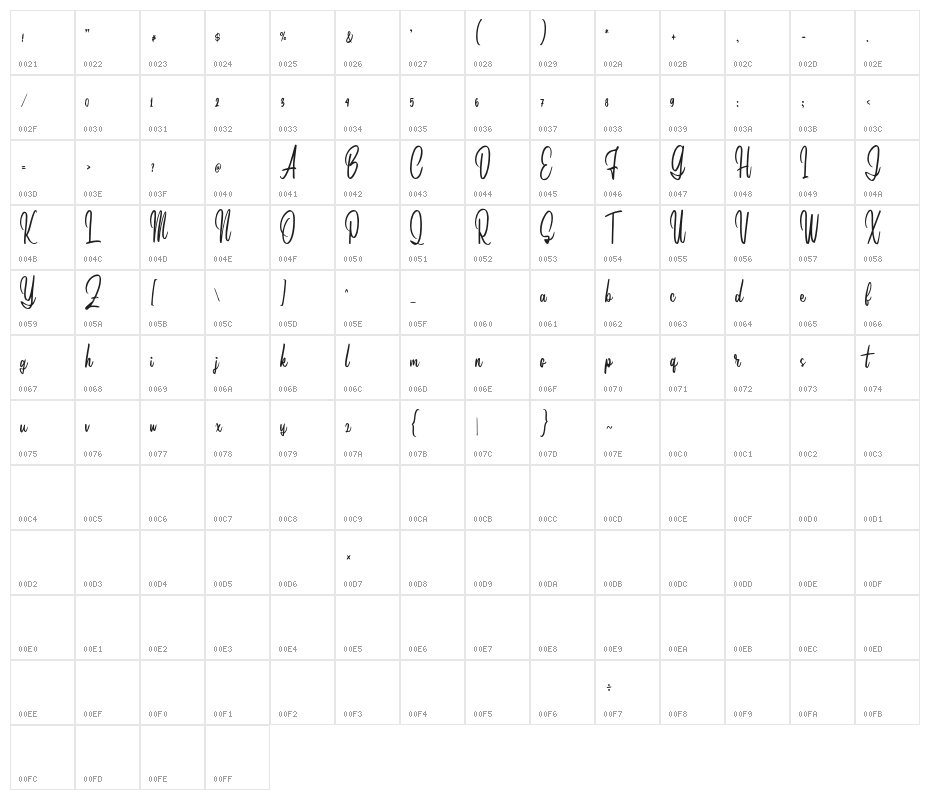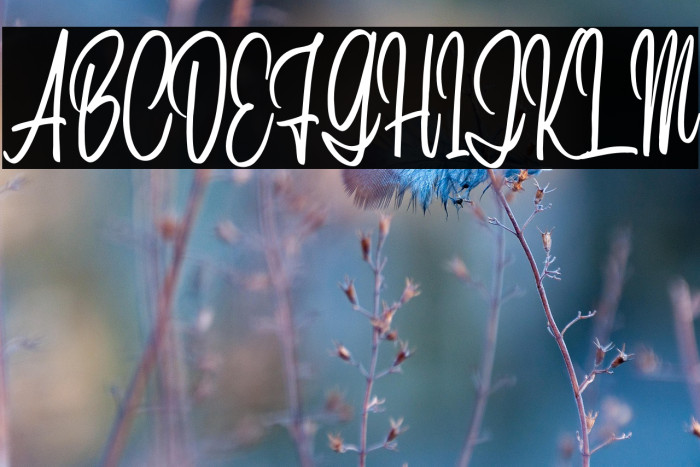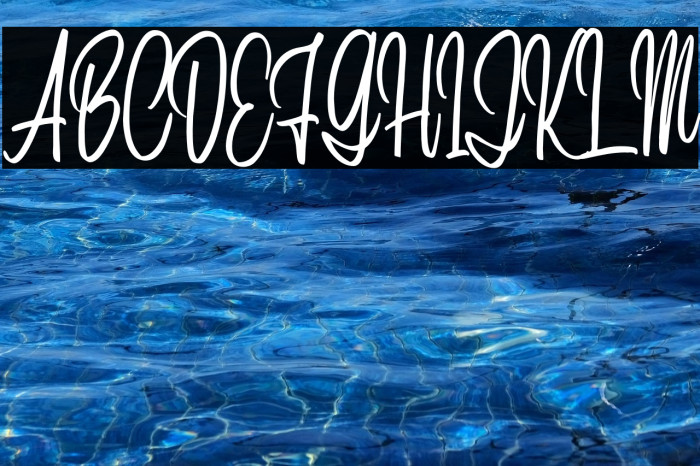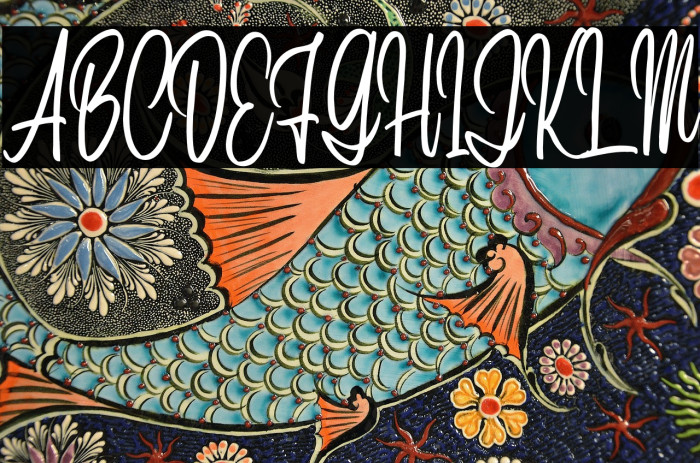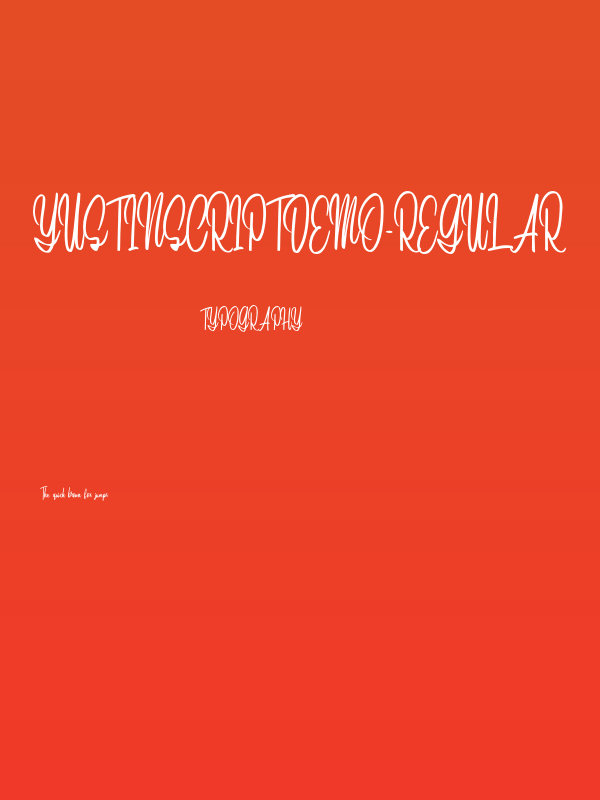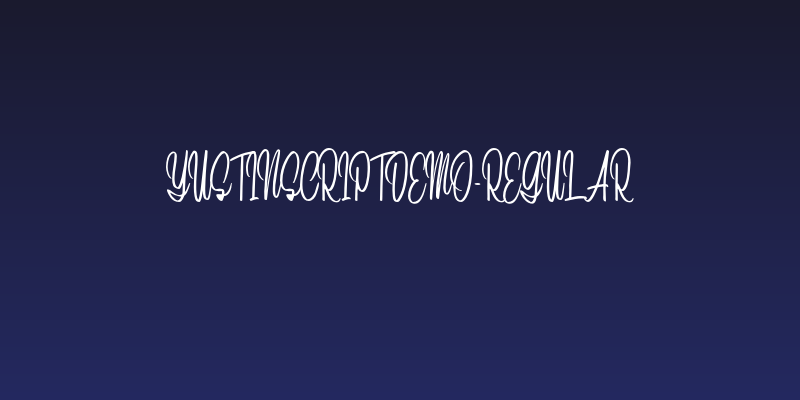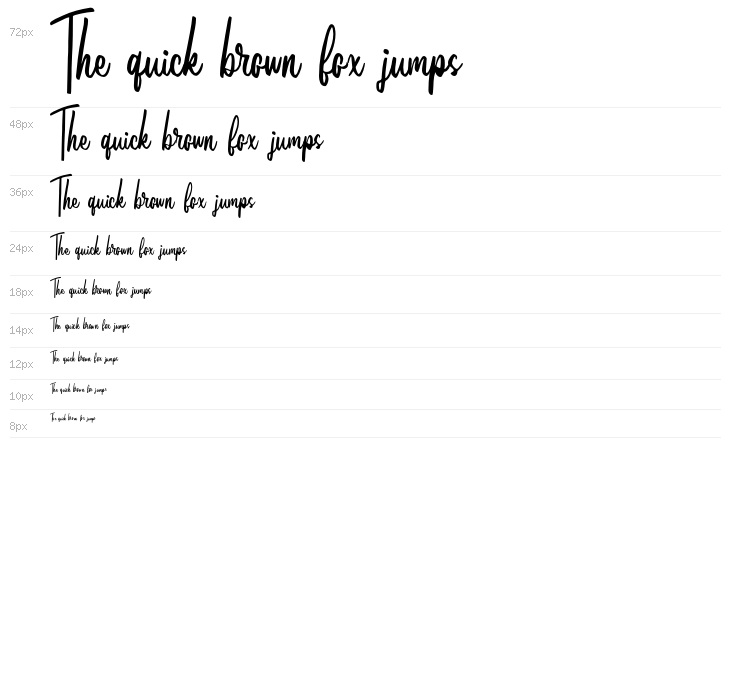
YustinScriptDEMO-Regular Font
YustinScriptDEMO-Regular Description
This font features a flowing, cursive style that exudes elegance and sophistication. The uppercase letters are tall and slender, with graceful loops and swirls that give them a dynamic appearance. The lowercase letters maintain a consistent flow, with smooth connections between characters that enhance readability. The numerals are styled to match the cursive theme, offering a cohesive look across all characters. Special characters are thoughtfully designed, maintaining the font's overall aesthetic. This script font is perfect for projects that require a touch of elegance and personal flair.
| Overall Style | Elegant |
| Use Case | Logos, Invitations, Greeting Cards |
| Proposed Projects | Ideal for wedding invitations, greeting cards, branding, and elegant logos. |